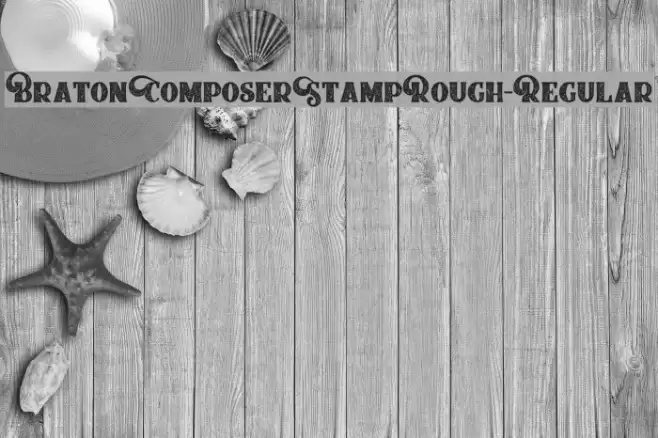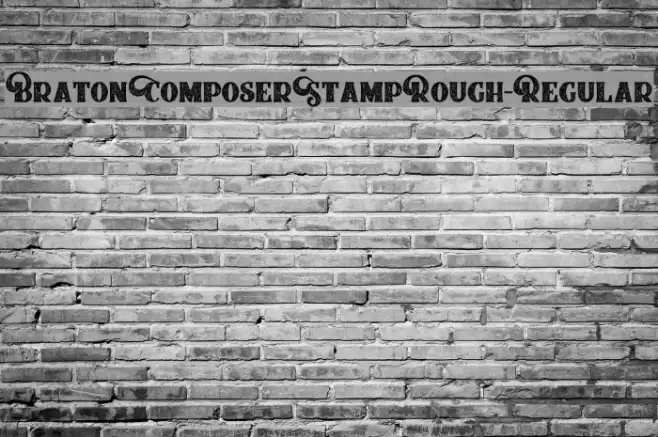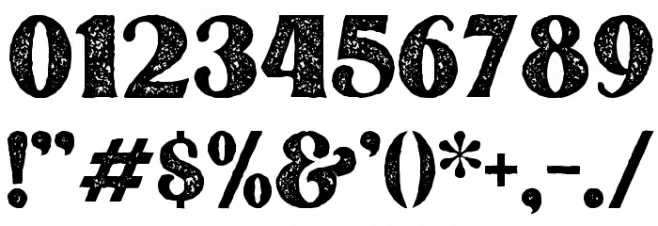
BratonComposerStampRough-Regular Font
BratonComposerStampRough-Regular Description
This font features a bold and textured design, reminiscent of vintage stamp impressions. The characters are robust with a rough, distressed appearance, adding a sense of history and authenticity. Each letter is uniquely crafted with a decorative flair, making it stand out in any design. The uppercase letters are particularly striking, with a strong presence and intricate detailing. The numbers and special characters maintain the same textured style, ensuring consistency across all elements. This font is ideal for projects that require a touch of nostalgia and character.
A bold, textured font with a vintage, stamp-like appearance from Uncategorized fonts.
- Proposed Projects: Ideal for vintage-themed posters, branding, packaging, and any design requiring a rustic, authentic feel.
- Overall Style: Vintage